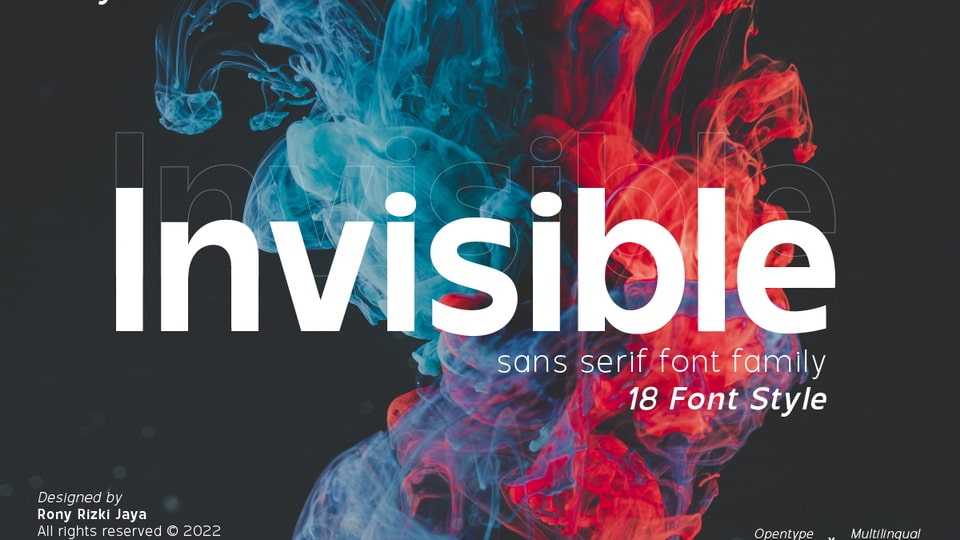
Download Invisible font, a geometric sans serif typeface. Invisible fonts can be enhanced and used for any display medium to support your visual designs.